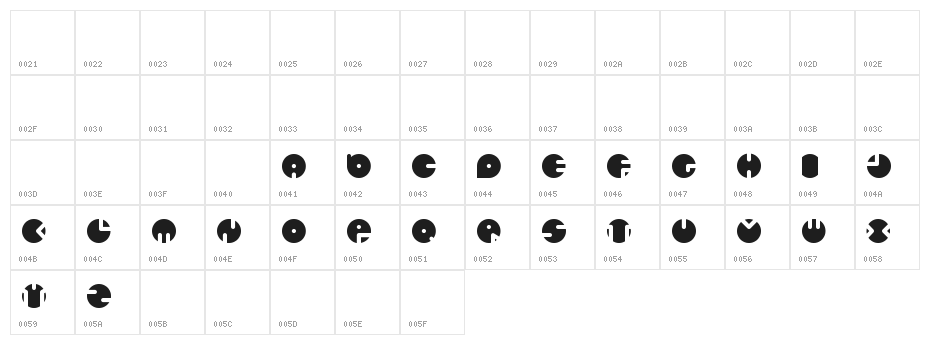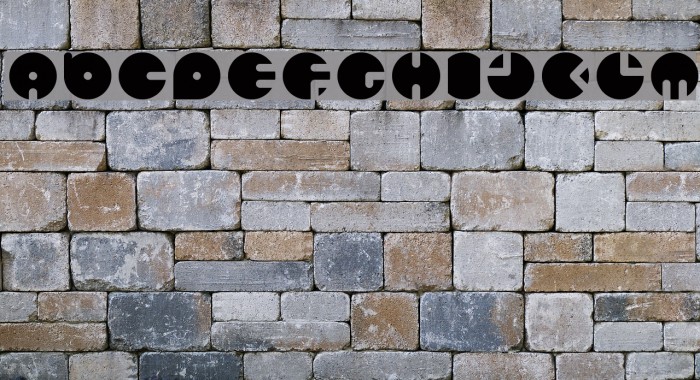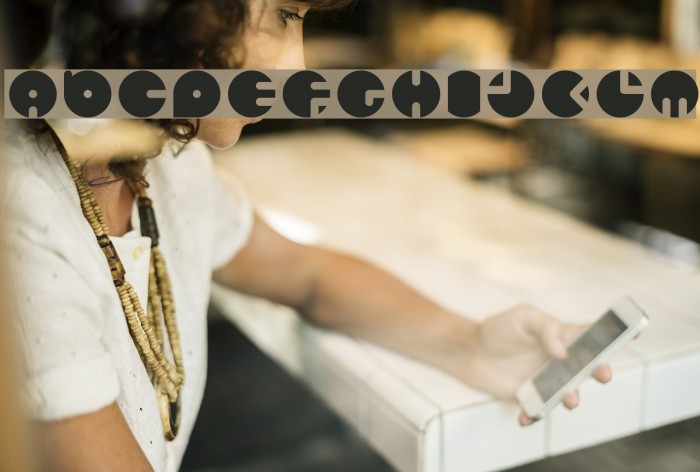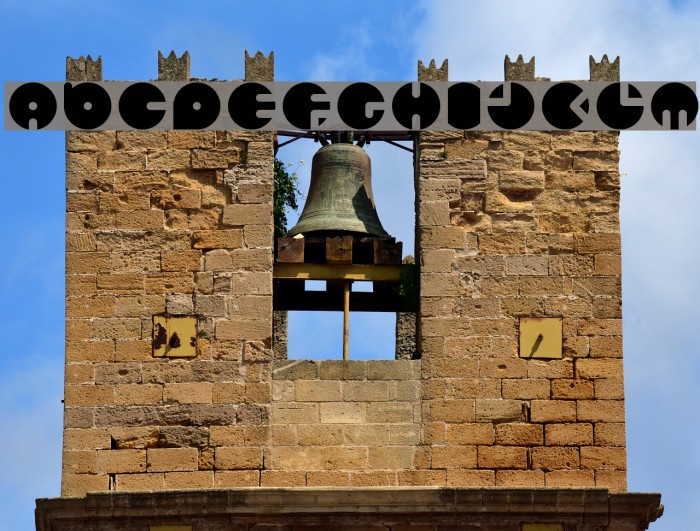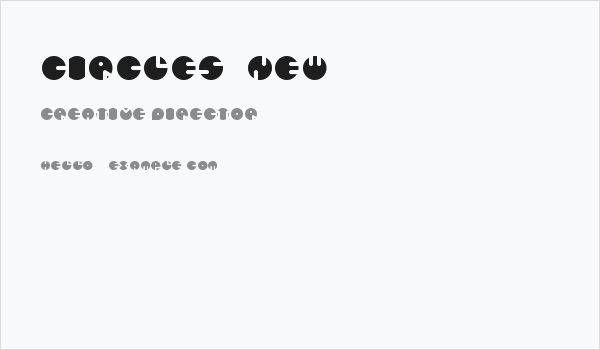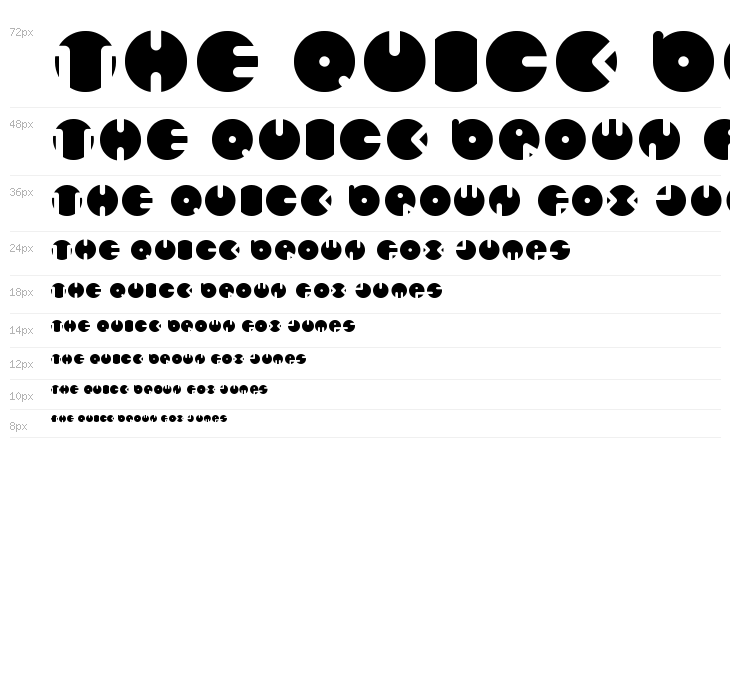
Circles_New Font
Circles_New Description
This font features a unique and modern design with characters formed primarily from circular shapes. Each letter and number is constructed using bold, geometric forms, creating a visually striking appearance. The font maintains a consistent circular motif throughout, with negative space cleverly used to define each character. This design gives it a futuristic and abstract feel, making it stand out in any application. The uniformity in shape provides a cohesive look, while the boldness of the characters ensures readability despite the unconventional style.
| Use Case | Logos, Headlines, Posters |
| Proposed Projects | Ideal for futuristic branding, modern art projects, digital media, and creative advertising campaigns. |